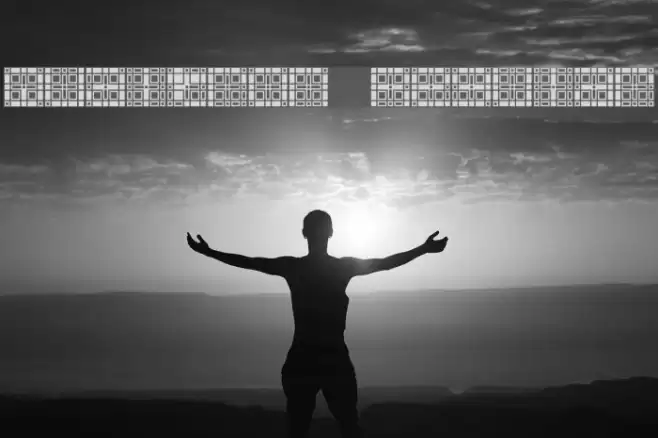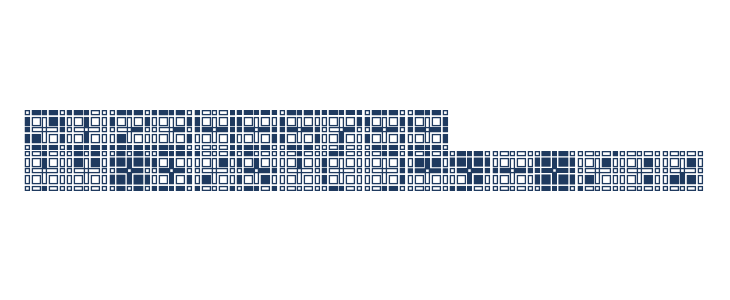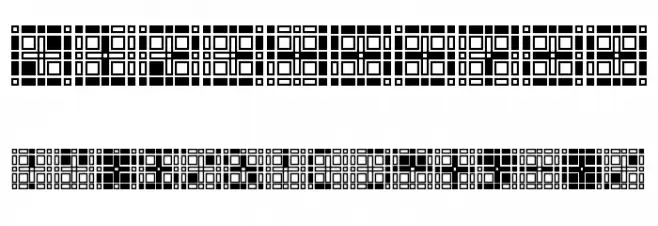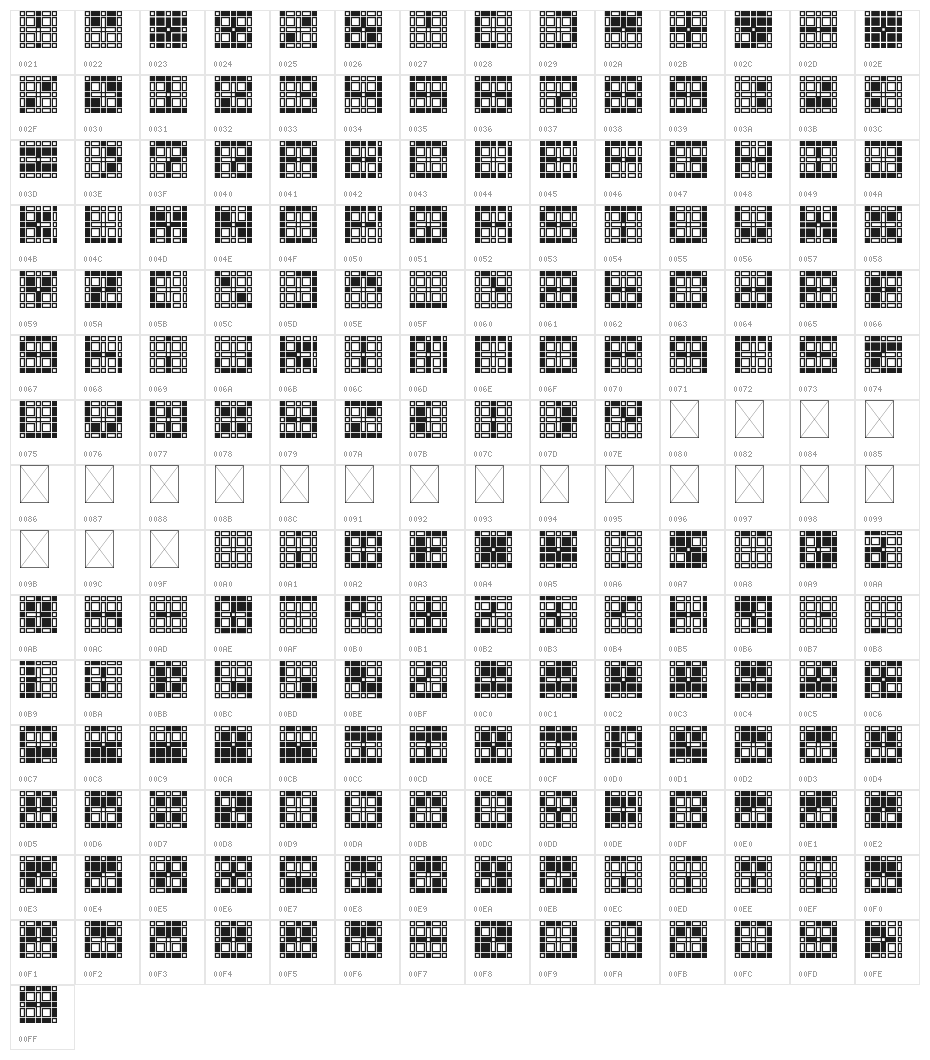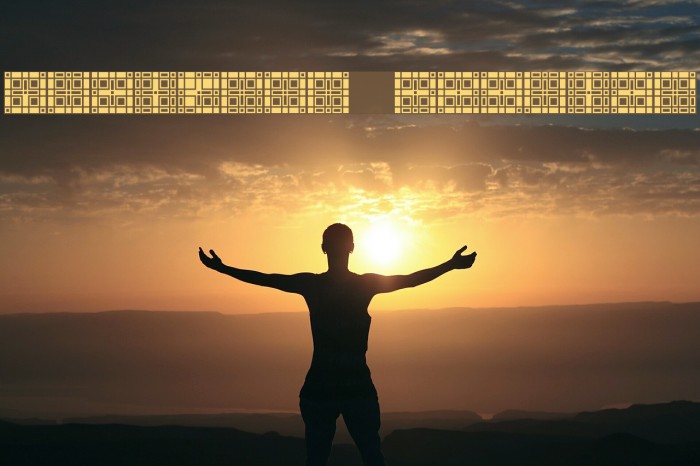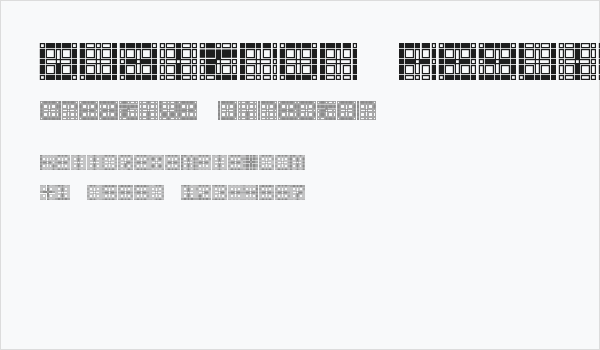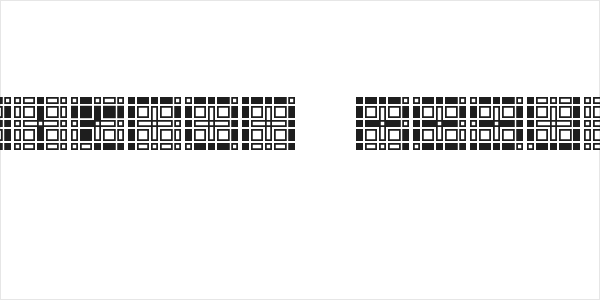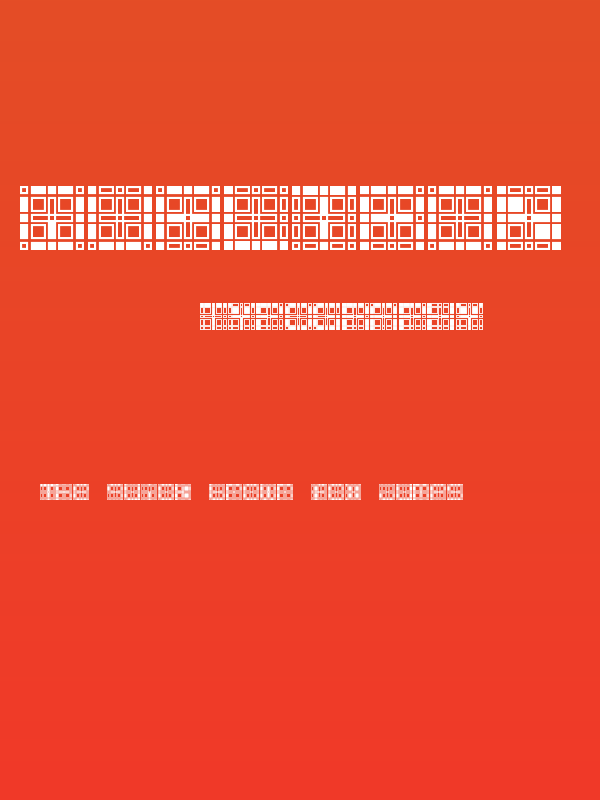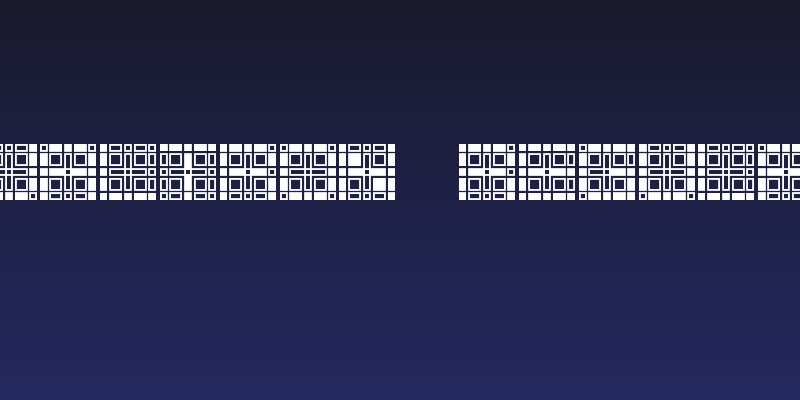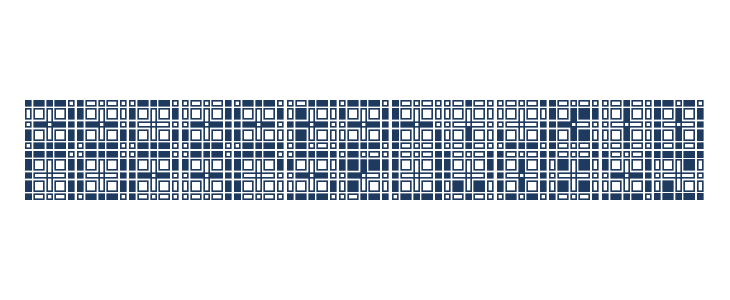
Qualtron Regular Font
Qualtron Regular Description
This font features a highly decorative and intricate design, characterized by a complex pattern of geometric shapes and lines. Each character is composed of a series of interconnected squares and rectangles, creating a maze-like appearance. The overall aesthetic is reminiscent of digital or circuit board patterns, offering a futuristic and technological feel. The uniformity in the design of each character ensures a cohesive look, while the detailed line work adds depth and texture. This font is best suited for creative and artistic projects where a unique and eye-catching typeface is desired.
A decorative font with intricate geometric patterns and a futuristic aesthetic from Uncategorized fonts.
- Proposed Projects: Ideal for digital art, technology-themed posters, album covers, and modern branding projects.
- Overall Style: Futuristic, Technological
- Use Case: Logos, Posters, Artistic Projects